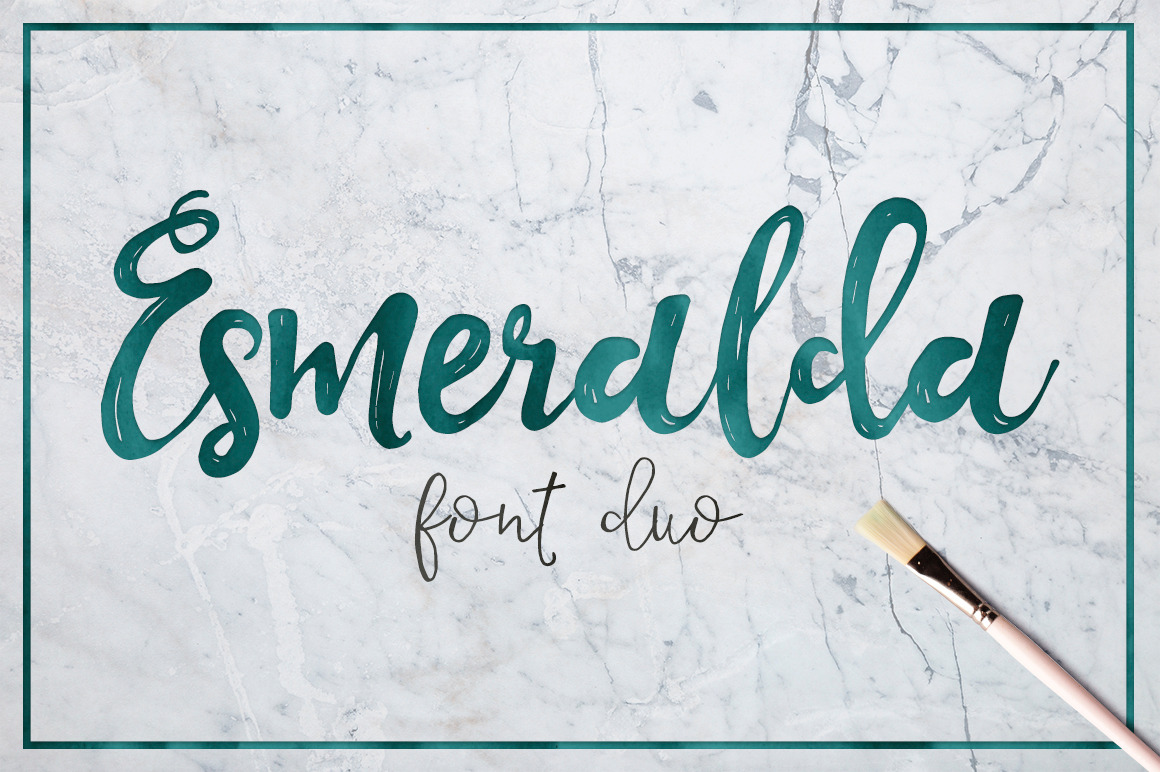
Esmeralda - handmade font duo!
ESMERALDA - HANDMADE FONT DUO!
A totally handmade font in bold and thin version. It got a elegant and feminine touch that makes it so beautiful! A totally signature font.